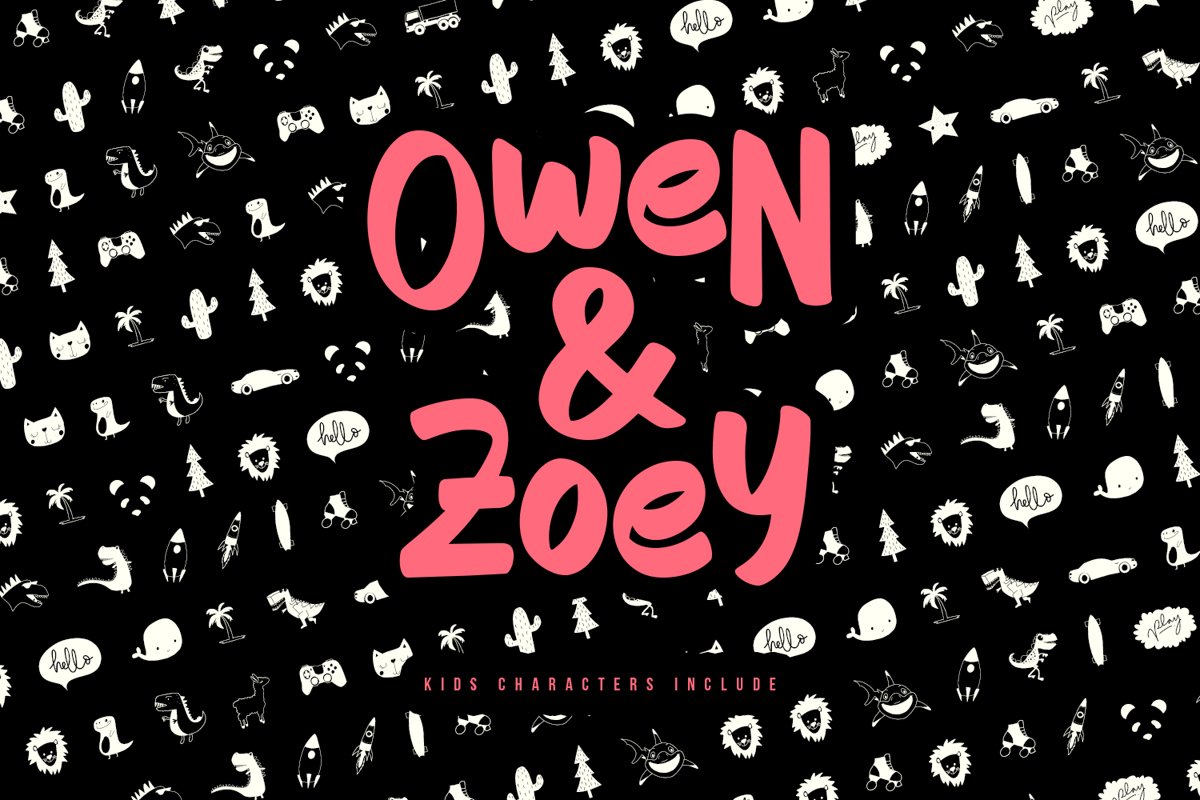
Owen Zoey Kids Characters Font Duo
Owen Zoey Kids Sans
Owen Zoey Kids Characters
Owen Zoey Kids Characters Font Duo is a playful child-like typeface perfect for any fun quirky design work! This font can be used for anything such as T-Shirt designs, mask, phone cases, greeting cards, invitations, mugs and so much more! Get creative!